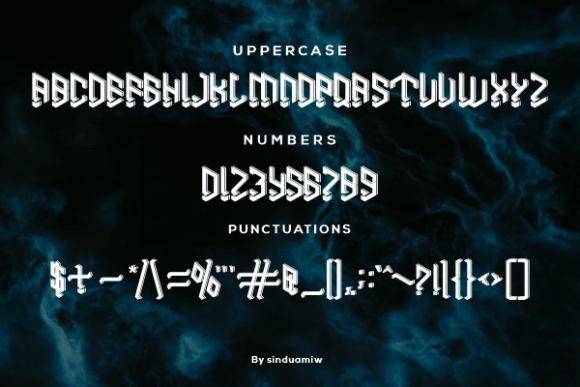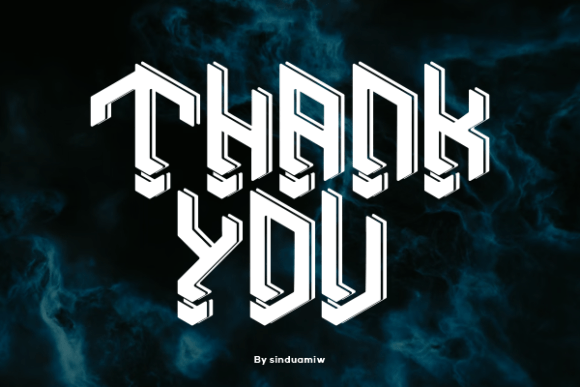
Hainaga Font: The Ultimate Modern Display Font for Bold Designs
In the world of typography, a font can make or break a design. For designers and crafters looking for a bold and modern display font, Hainaga Font is an excellent choice. This powerful font is perfect for creating loud designs, posters, quote designs, book covers, music-related branding, Halloween designs, banners, and more.
What Makes Hainaga Font Stand Out?
Hainaga Font is a very cool, powerful, and modern display font that is sure to grab attention. Its unique and edgy design makes it perfect for designs that require a bold statement. The font’s modern style ensures that your designs look fresh and up-to-date, while its versatility allows you to use it across various design projects.
Perfect for Bold Designs
Hainaga Font is ideal for designers who want to create bold and eye-catching designs. Its strong and confident appearance makes it perfect for:
- Loud Designs: Add a touch of drama to your designs with Hainaga Font’s bold and attention-grabbing style.
- Posters: Create striking posters that grab attention with this powerful font.
- Quote Designs: Make your quotes stand out with Hainaga Font’s modern and edgy design.
- Book Covers: Give your book covers a bold and eye-catching look with this versatile font.
- Music-Related Branding: Create a strong brand identity for music-related projects with Hainaga Font’s modern style.
- Halloween Designs: Add a spooky touch to your Halloween designs with this font’s bold and edgy appearance.
- Banners: Create attention-grabbing banners that make a statement with Hainaga Font.
Key Features of Hainaga Font
Hainaga Font comes with several key features that make it a top choice for designers and crafters:
- Modern Style: This font boasts a modern style that ensures your designs look fresh and up-to-date.
- Bold and Edgy Design: Hainaga Font’s bold and edgy design makes it perfect for creating striking designs.
- Versatility: Use this font across various design projects, from posters to book covers and more.
- Ease of Use: Hainaga Font is easy to use and pairs well with other fonts, making it a great addition to your font library.
Tips for Using Hainaga Font
To get the most out of Hainaga Font, here are some tips:
- Pair it with Other Fonts: Experiment with pairing Hainaga Font with other fonts to create a unique and eye-catching design.
- Use it for Headlines: Hainaga Font is perfect for headlines and titles, so use it to grab attention.
- Experiment with Colors: Try out different colors to see what works best with Hainaga Font and your design.
In conclusion, Hainaga Font is a powerful and modern display font that is perfect for designers and crafters looking to create bold and eye-catching designs. Its versatility, ease of use, and bold style make it an excellent addition to any font library. Whether you’re working on a poster, book cover, or music-related branding project, Hainaga Font is sure to make a statement.